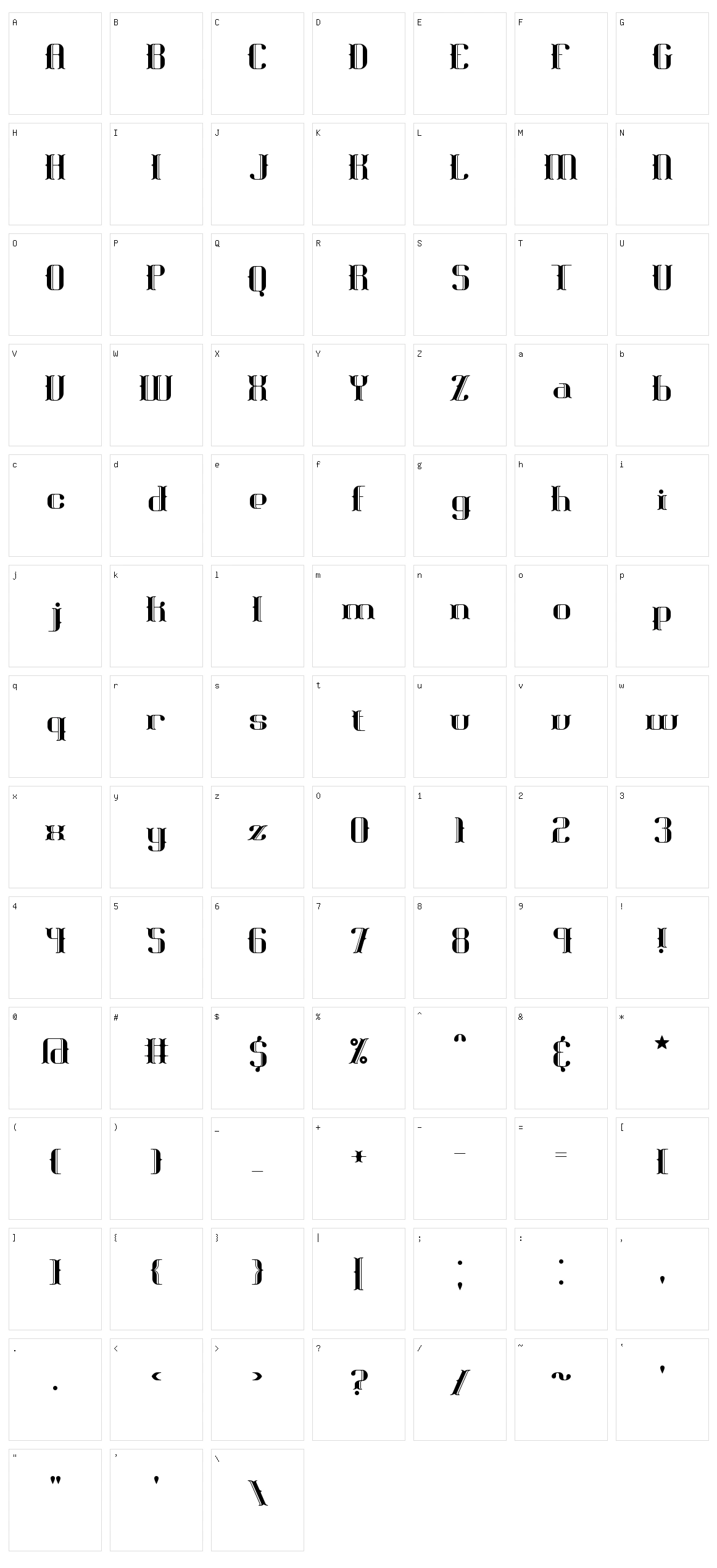
Blackoninaut BRK
Designed by: ?nigma
Category: Various & Gothic
Blackoninaut Created by Brian Kent
Idea Suggested by Joseph Staleknight
with a font idea. His idea was to "Juxtapose Blackletter with Didone,
and add a touch of Futuristic. Oh yeah, and call it Blackoninaut", and
this is the font I created.
There are some alternative extra characters included in this font.